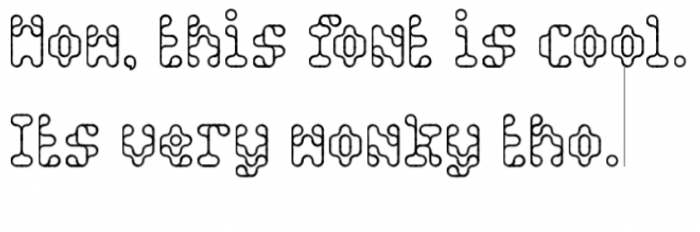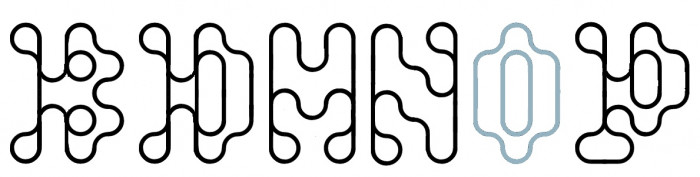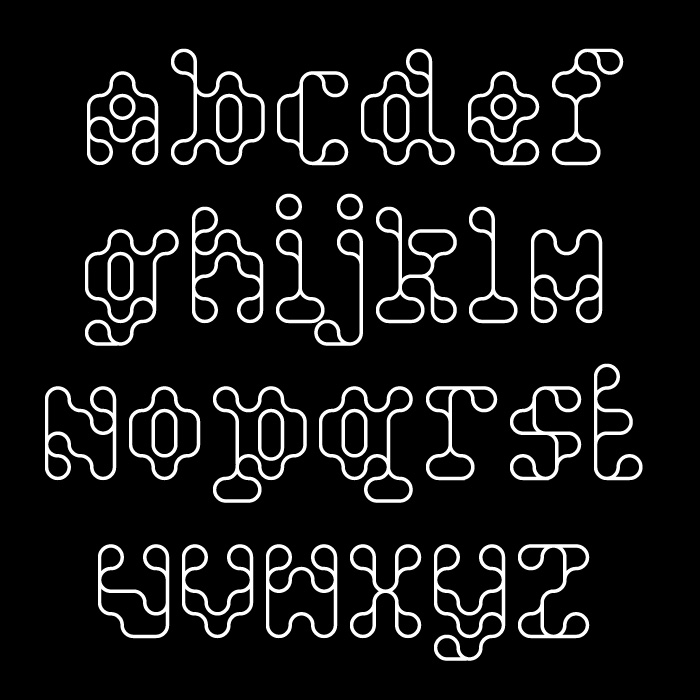
very nice outline design
Congrats on the new TP! I hope you don't mind knowing, but every time I see one of your fontstructs I stop to look over and over again how you did it and how I would have done it (in the details where I disagree). I just can't stop doing it. Thanks for that, compañero! ?
Congrats on the top pick! I wonder if a filled version is possible…
you would think this font would be unreadable, but it isnt.
Some glyphs have made me think about small modifications...
@BWM Yes, that should be possible.
@elmoyenique Thanks for your suggestions, I'll include them as extras. I was playing with the same idea: changing all glyphs that don't have an element that narrow to a single line (difficult for O,0,o and 8) but then I decided that I wanted to maintain the continuous curved shapes  as much as possible.
Thanks. Convergent thinking again, IMHO.
Great work. Refreshingly creative. 10/10